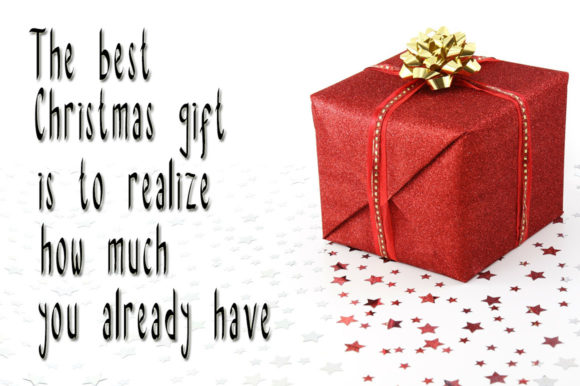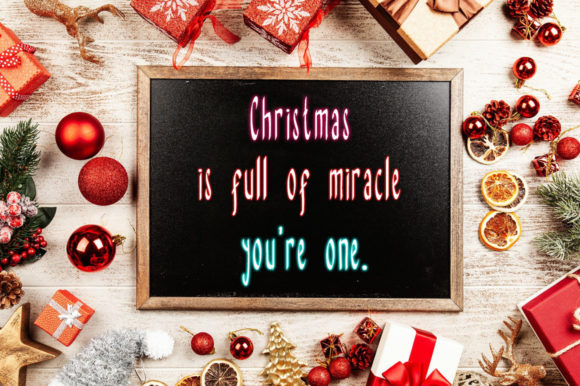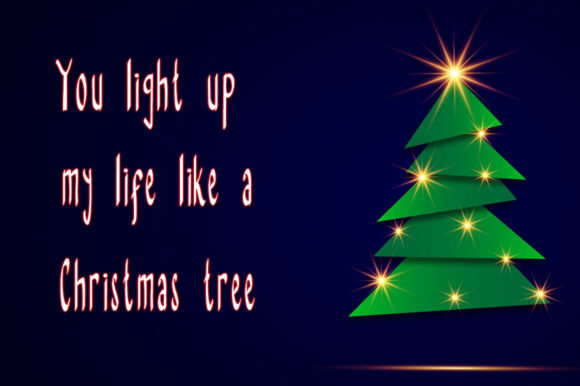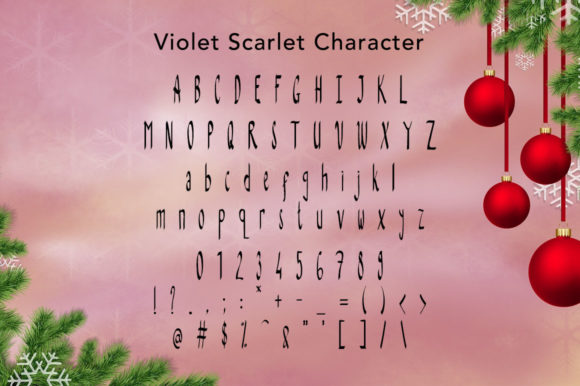
Violet Scarlet Font
About Violet Scarlet Font
Violet Scarlet is a charming and casual handwritten font that brings a playful and friendly vibe to any design. With its natural and unique style, this font is incredibly versatile and suitable for a wide range of creative projects.
One of the key features of Violet Scarlet is its cute and casual appearance, making it perfect for various casual designs. Whether you’re creating social media graphics, crafting DIY projects, designing greeting cards, or adding a personal touch to your invitations, this font will add a delightful flair to your creations.
For social media, Violet Scarlet will catch the eye of your followers with its warm and approachable look. Use it for quotes, captions, announcements, or any content that you want to stand out on platforms like Instagram, Facebook, or Pinterest.
In the realm of DIY projects, Violet Scarlet will elevate your designs to a new level of charm. Whether you’re crafting handmade gifts, creating scrapbook layouts, or decorating your bullet journal, this font’s handwritten style will add a personal and heartfelt touch to your projects.
Additionally, Violet Scarlet is perfect for party invitations and event announcements. Its cute and casual appearance will set the tone for a fun and joyful gathering, whether it’s a birthday party, baby shower, or any other celebration.
Violet Scarlet can also be an excellent choice for children’s designs. From children’s book illustrations to educational materials, this font’s friendly and whimsical look will appeal to young audiences and add a touch of magic to their reading or learning experience.
Moreover, Violet Scarlet is well-suited for branding, especially for businesses targeting a youthful and lighthearted audience. Use it in logos, product packaging, or marketing materials to create a brand image that feels approachable and relatable.
In summary, Violet Scarlet is a cute and casual handwritten font that effortlessly adds a natural and unique touch to a diverse range of designs. Whether you’re working on social media graphics, DIY projects, party invitations, children’s designs, or branding, this font will bring a sense of joy and personality to your creative endeavors.